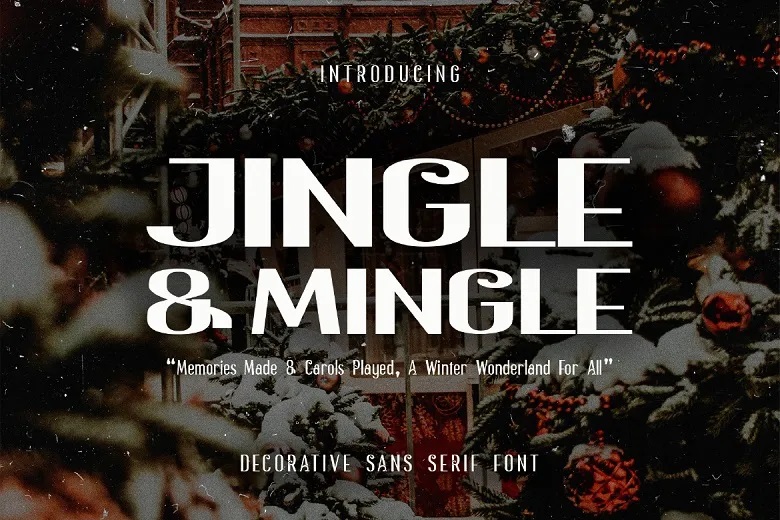
Jingle & Mingle Font
Jingle & Mingle: The brand goes much farther than the typical use of a ‘decorative’ sans-serif font. With its just the right amount of brevity when you need it, and just the right amount of room to stretch out and play when you don’t, this font is graced with lovely swashes and graceful curves. Both come with a dose of friendliness and friendliness, and can be used for branding, invites and to establish a personal connection with the readers.
It’s not just fun-named, it’s actually fun to use and it can add a playful element to any of your projects while still maintaining a professional look. Try Jingle and Mingle for a daring option that speaks style and has fun at the same time.
Jingle & Mingle Sans Serif Font